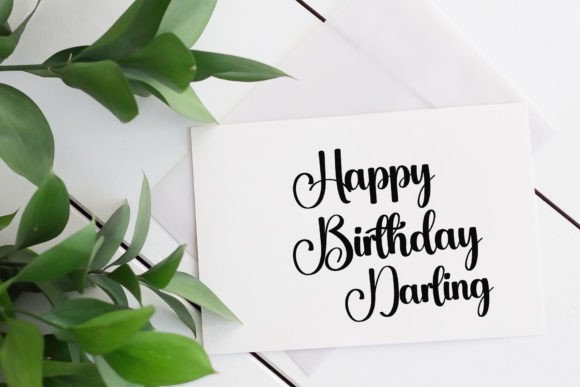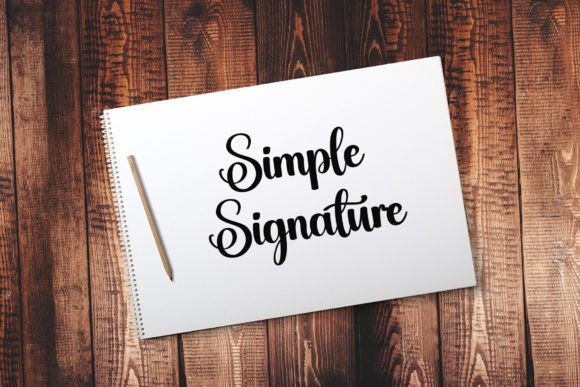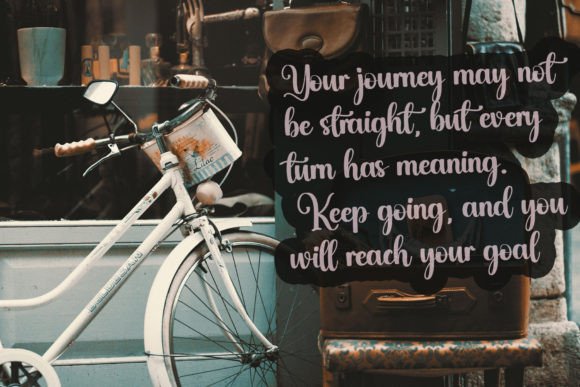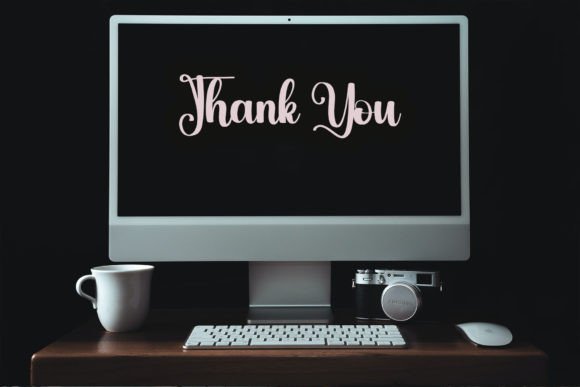
Introducing Angela Font: Elevate Your Designs with Timeless Elegance
Are you on the hunt for a font that exudes sophistication and style? Look no further than Angela Font, a trendy handwritten font that brings a contemporary atmosphere to your design projects. Inspired by the classic calligraphy of yesteryear, Angela Font is the perfect addition to any designer’s toolkit.
The Inspiration Behind Angela Font
Angela Font draws its inspiration from the timeless world of classic calligraphy. With its impeccable form and elegant strokes, this font is designed to evoke a sense of nostalgia while still feeling fresh and modern. The result is a font that feels both refined and approachable, making it perfect for a wide range of design applications.
Key Features of Angela Font
- Trendy and Contemporary: Angela Font boasts a modern aesthetic that will elevate your designs and set them apart from the crowd.
- Handwritten Charm: With its handwritten origins, Angela Font brings a touch of personality and warmth to your designs.
- Elegant and Classy: Inspired by classic calligraphy, Angela Font exudes sophistication and refinement.
- Versatile: From branding and packaging to wedding invitations and digital media, Angela Font can be used across a wide range of design projects.
Use Cases for Angela Font
Angela Font’s versatility makes it an excellent choice for various design projects. Here are a few ideas to get you started:
- Branding and Logo Design: Create a lasting impression with a custom logo that incorporates Angela Font, perfect for businesses looking to establish a sophisticated brand identity.
- Wedding Invitations and Stationery: Add a touch of elegance to your wedding stationery, save-the-dates, and thank-you cards with Angela Font.
- Packaging Design: Elevate your product packaging with Angela Font, ideal for luxury goods, cosmetics, and gourmet food products.
- Digital Media: Use Angela Font in your digital designs, such as social media graphics, blog headers, and email newsletters, to add a touch of sophistication.
Why Choose Angela Font?
With so many fonts available, why choose Angela Font? Here are a few compelling reasons:
- Unique and Distinctive: Angela Font’s elegant and refined aesthetic sets it apart from more generic fonts.
- Easy to Read: With its clear and legible design, Angela Font is perfect for body text and headlines alike.
- Customizable: Experiment with different colors, sizes, and styles to make Angela Font your own.
Angela Font is a stunning handwritten font that brings a touch of timeless elegance to your design projects. With its impeccable form, elegant strokes, and versatile design, Angela Font is the perfect choice for designers and crafters looking to elevate their work. Whether you’re creating branding materials, wedding stationery, or digital media, Angela Font is sure to impress. So why wait? Download Angela Font today and discover the power of elegant typography.